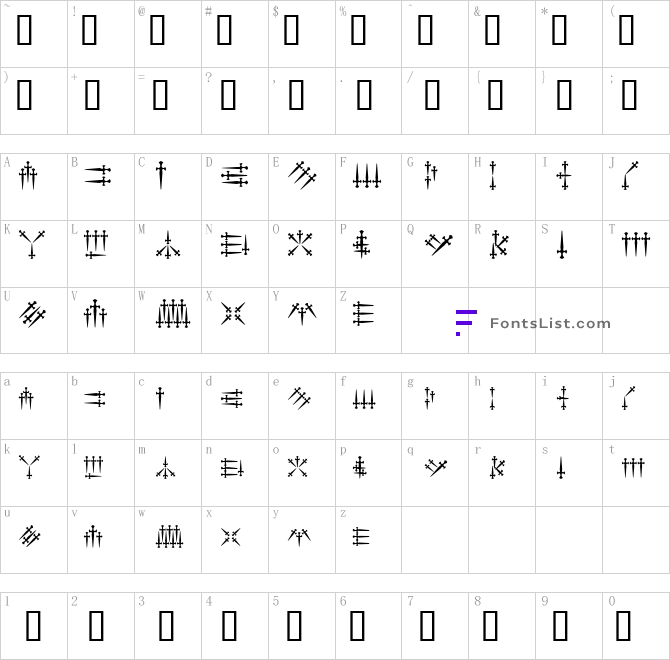
- Font Name:Daggers Alphabet
Daggers-Alphabet.ttf is a very beautiful artistic font, Daggers-Alphabet.ttf is widely used in the design and printing of various books and pictures,Daggers-Alphabet.ttf has a strong visual impact,Daggers-Alphabet.ttf is a commonly used font in newspapers, magazines and books, and is used in posters, e-commerce Poster design, store design, logo design, font design and other fields.Daggers-Alphabet.